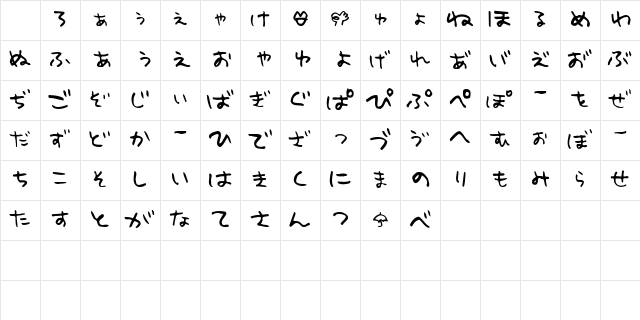
HolidayH Regular
Design Context for HolidayH Typeface
HolidayH is a composed and adaptable typeface that performs quietly and consistently across a wide range of design contexts.